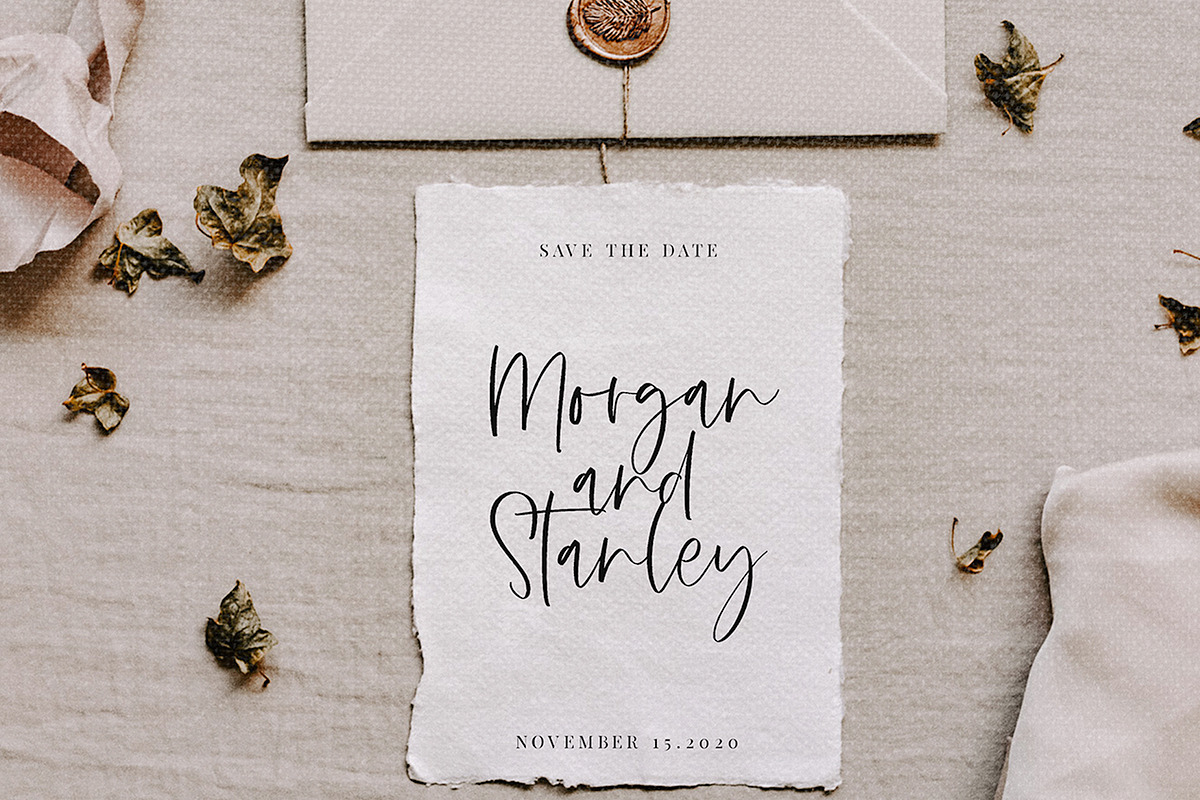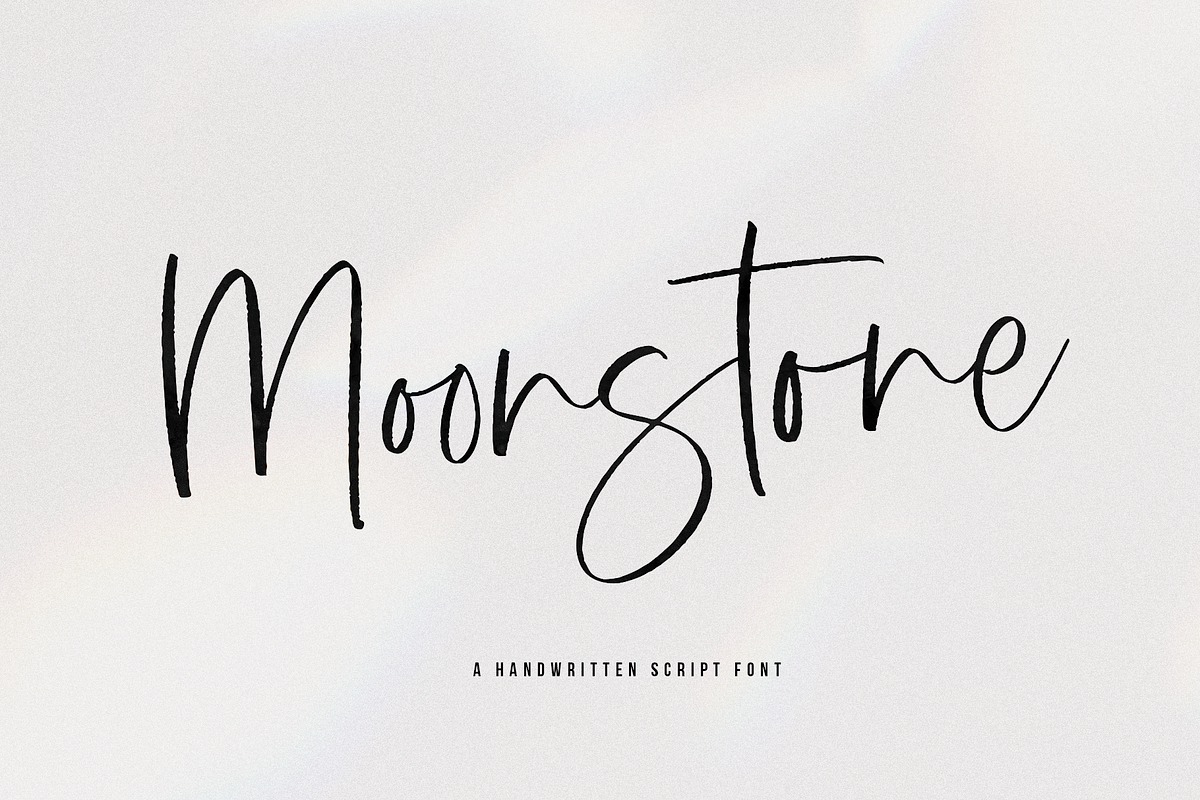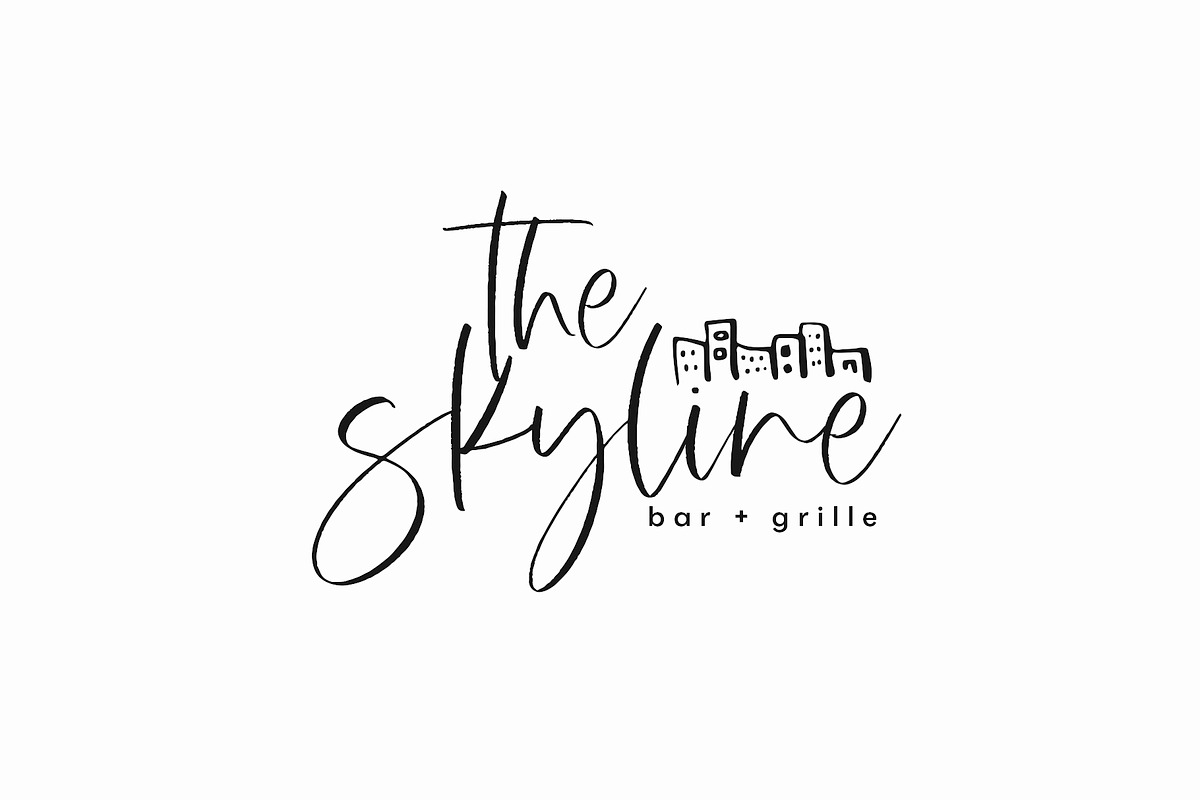
Moonstone | Handwritten Script Font
Moonstone is a chic handwritten font with a fun brush texture. It has a thin modern calligraphy look making it perfect for branding and digital designs. Use this font for logos, social media, websites, blogs, instagram, business cards, branding, and more!